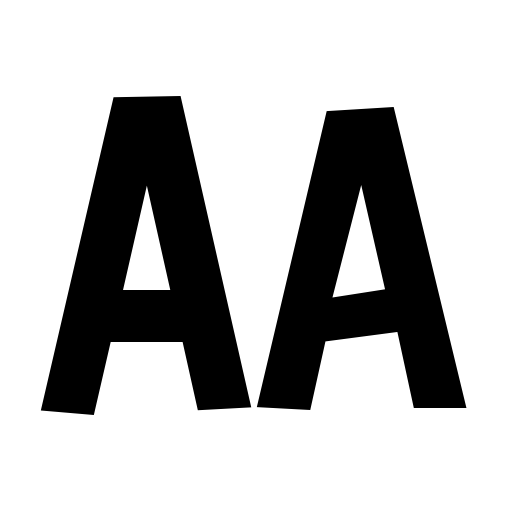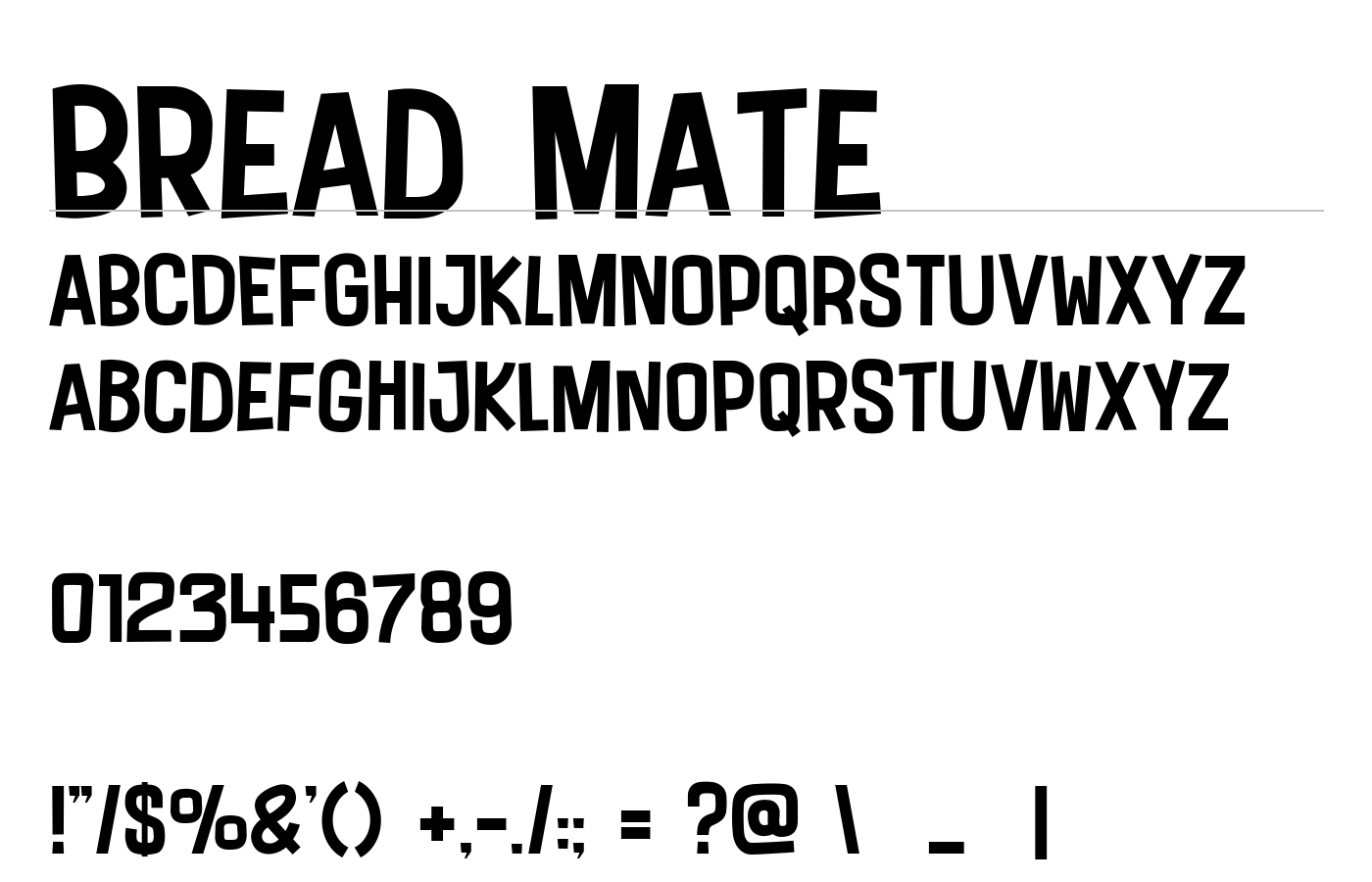
Bread Mate is a bold, condensed sans serif font with a playful, slightly uneven design that gives it a casual yet strong personality. Its tall, narrow letterforms and irregular angles make it ideal for eye-catching headlines, logos, and branding that seek a friendly and dynamic feel. Perfect for creative projects, packaging, or posters, it stands out with its energetic and approachable style.
Bread Mate Font
About Bread Mate Font